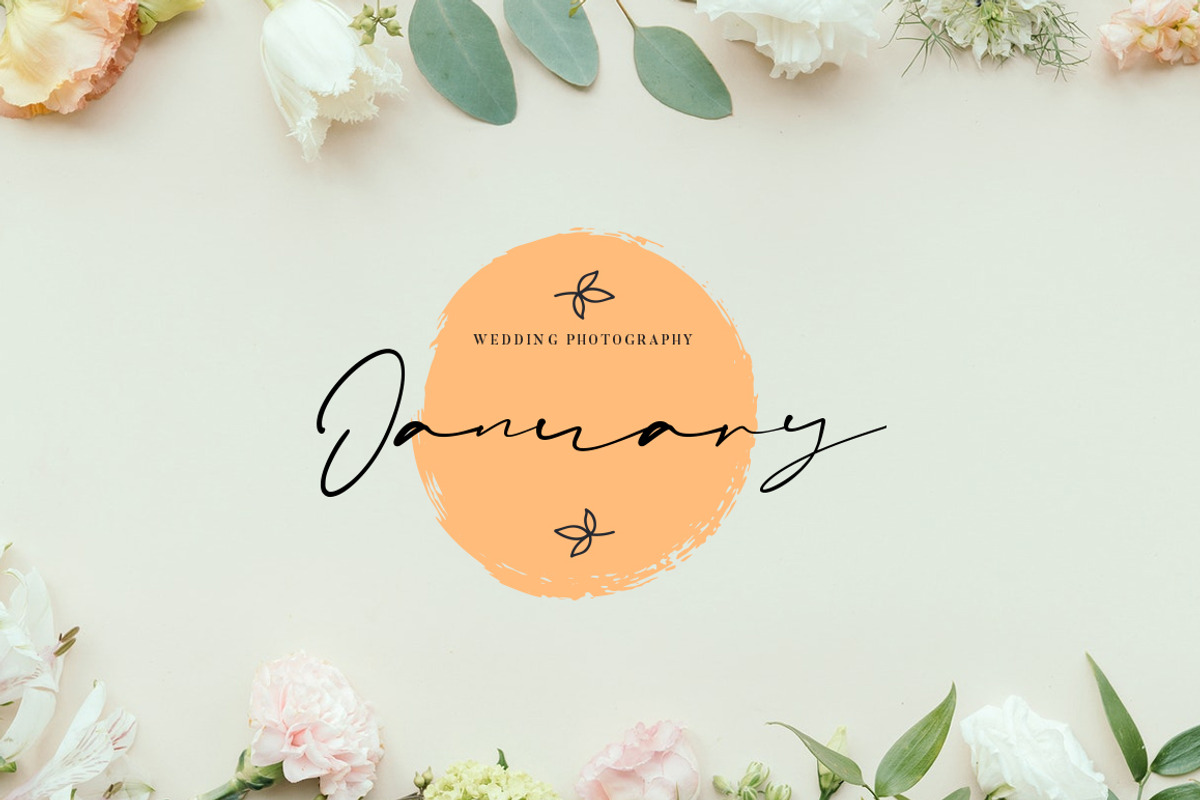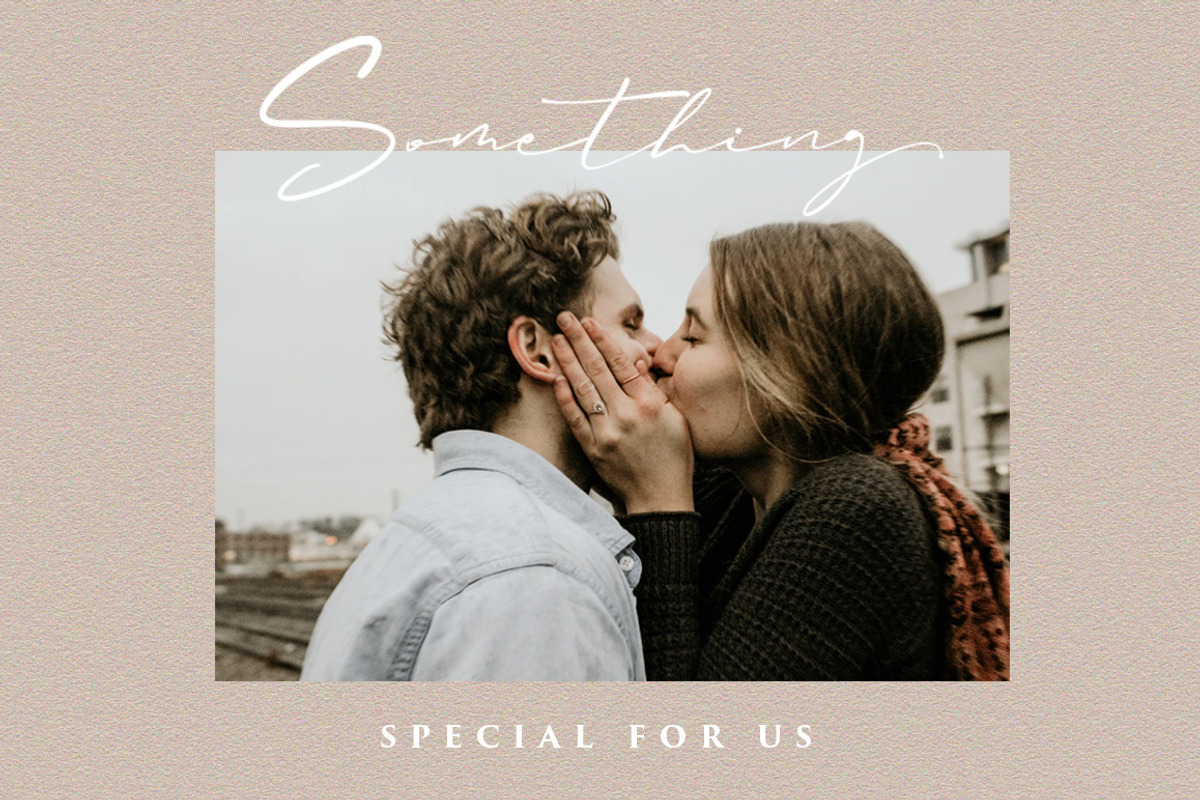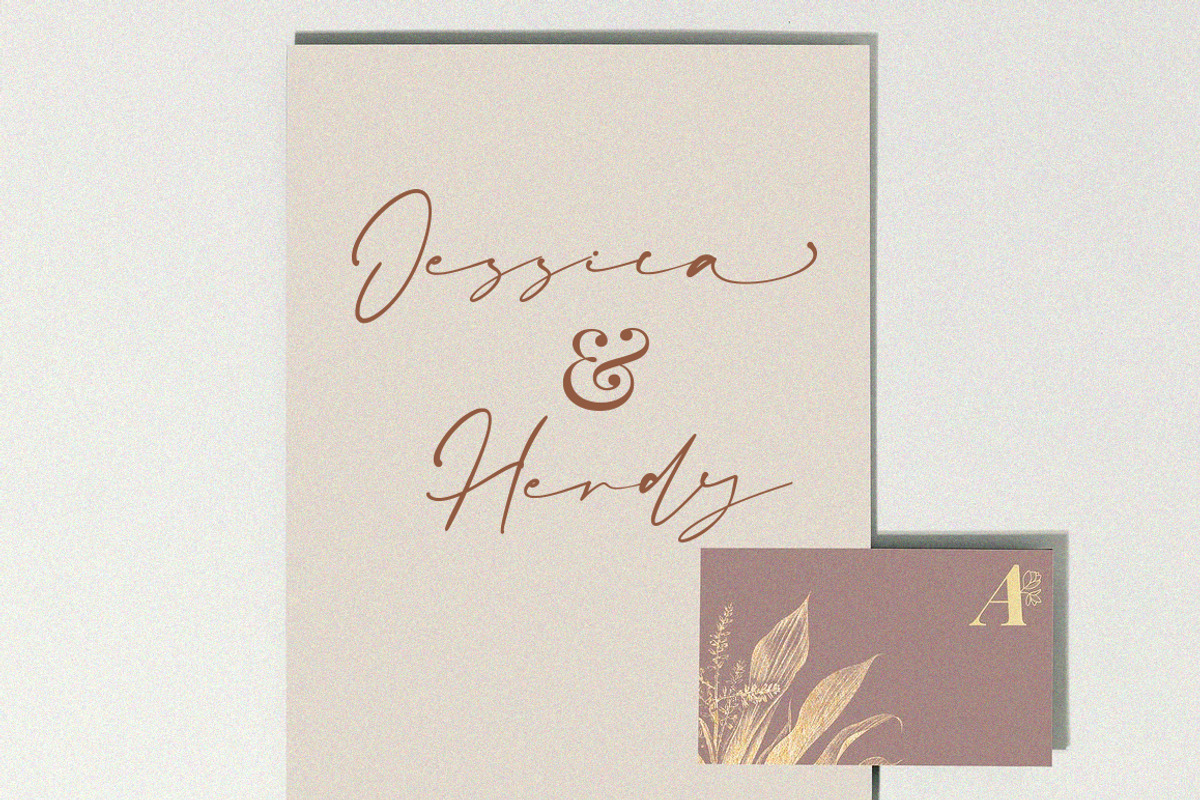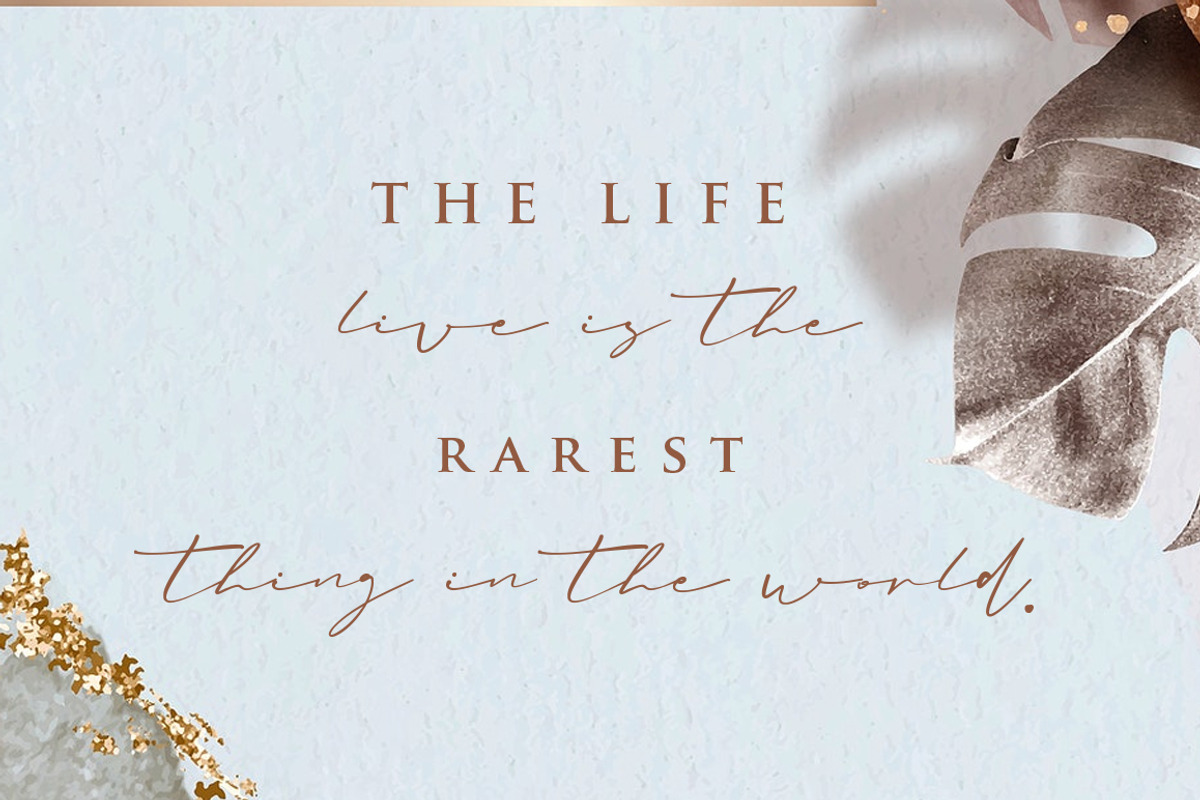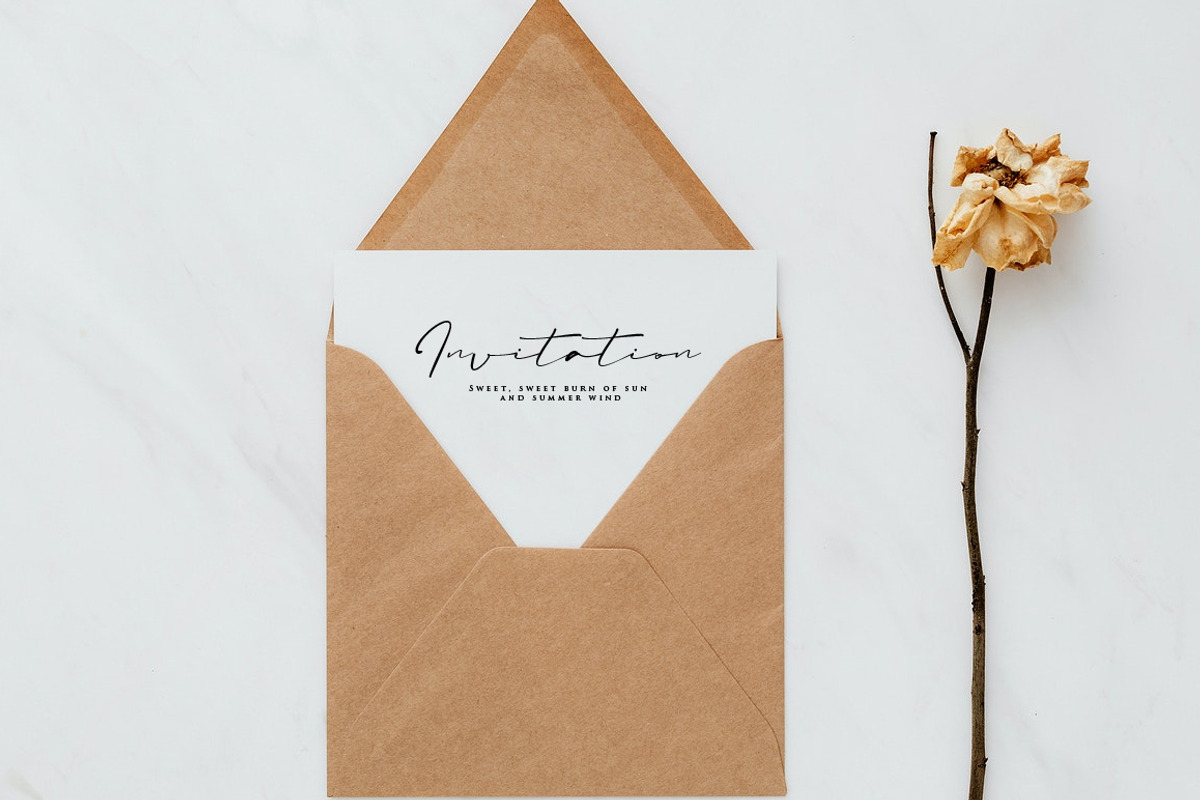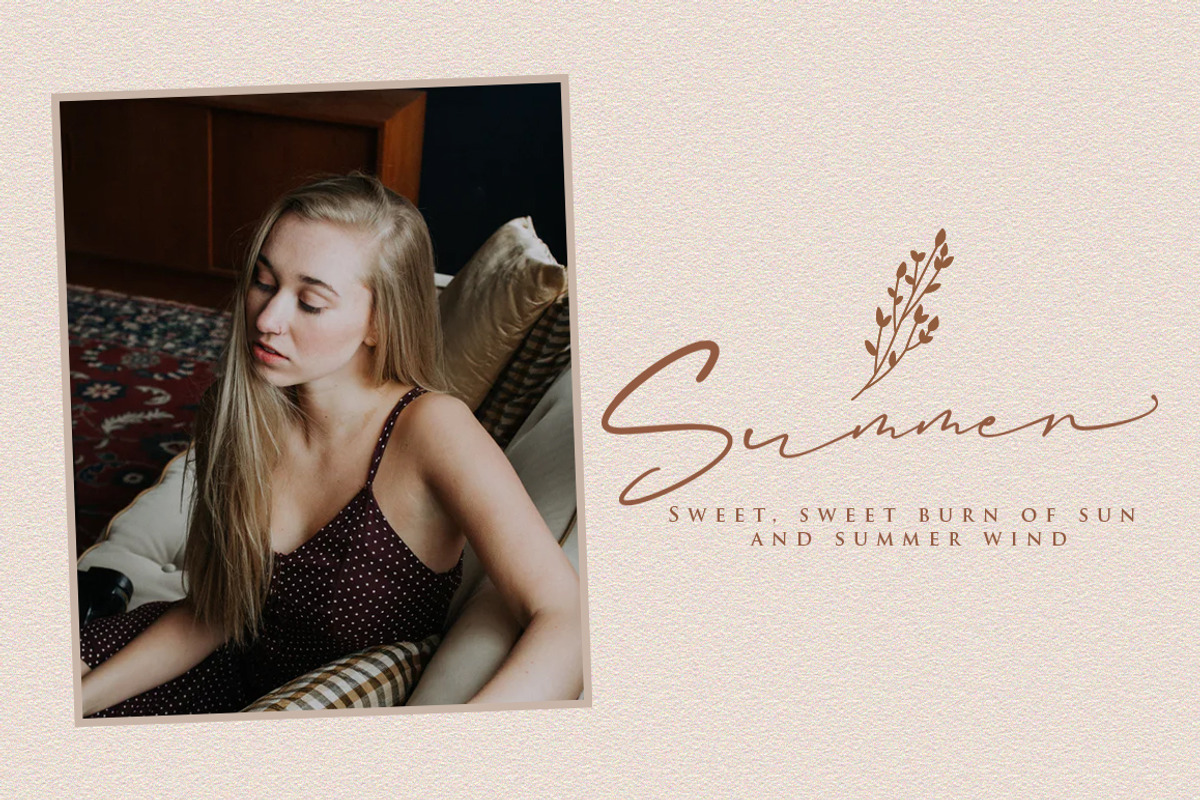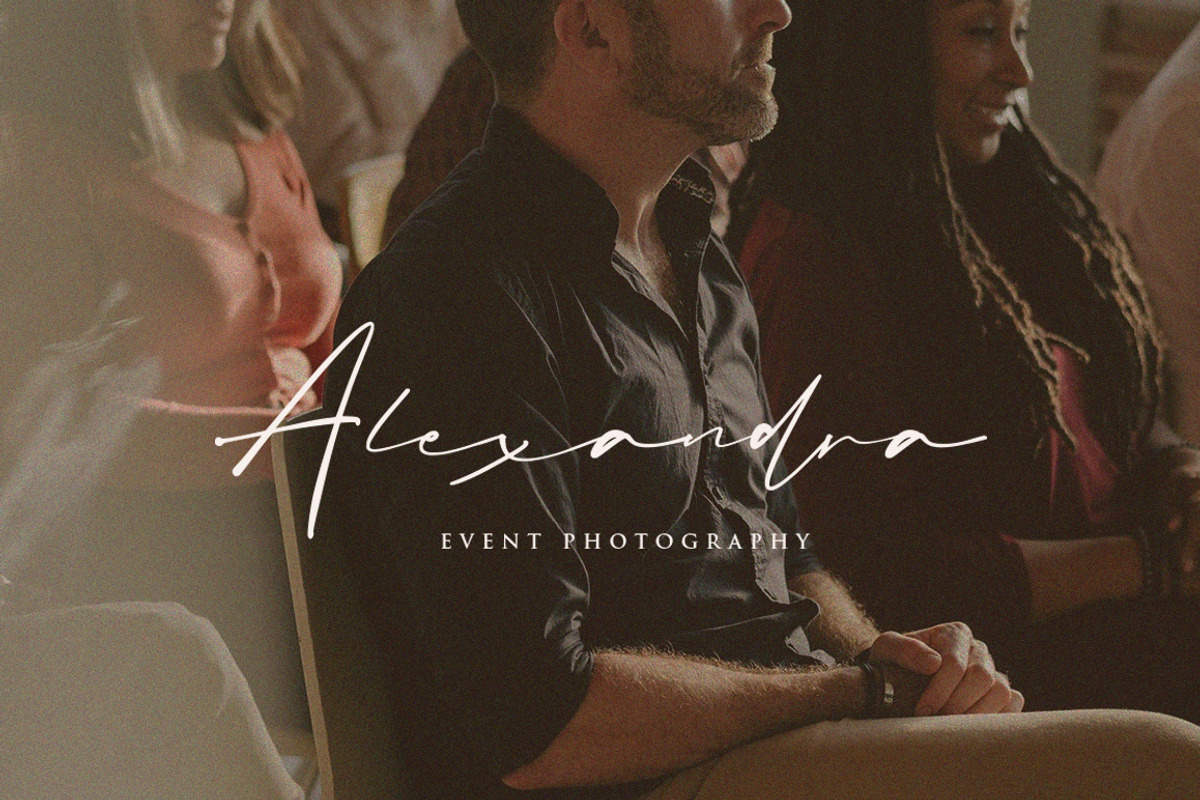
SALE ! Amanda Signature Font is minimalistic script with beautiful ligature and alternate font.
inspired by a luxury fashion. Contemporary handwriting fonts with ligatures and alternative styles ready to add unique look and bloom on your design
It easily cooperating together For Magazine, Movies, or Book Titles. For Photography, Wedding Invitation, Restaurant Menu or T-shirt Design. For Flyers, Banner Ads, web and printing. From Food and Fashion to a Cosmetics product
SALE ! Amanda Signature Font by Vultype Co. fits naturally into Branding, posters, packaging, typography.